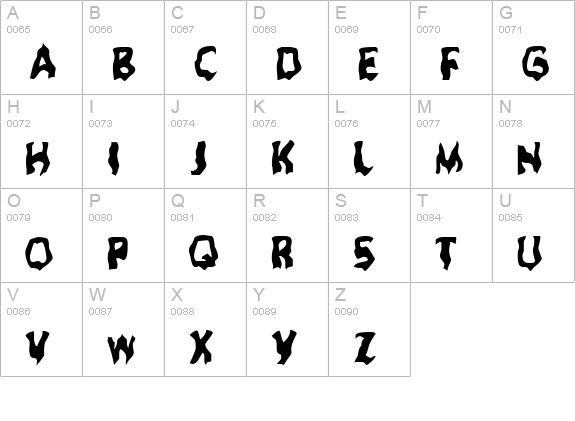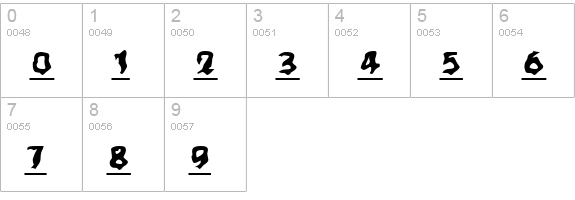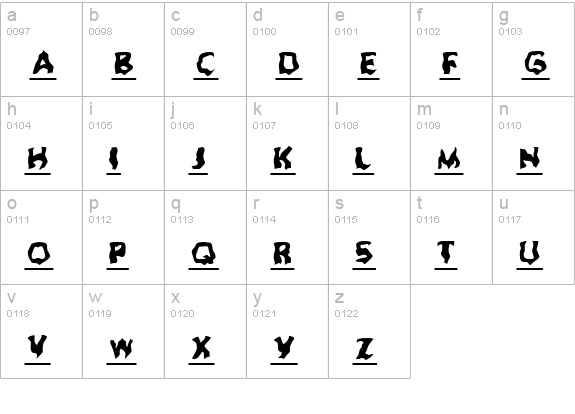
Ghoul Headline Font Details
Ghoul Headline font is a hauntingly beautiful typeface that exudes a sense of mystery and darkness. Its sharp edges and bold design make it perfect for creating eye-catching headlines and titles that demand attention. This unique font combines elements of horror and elegance, making it suitable for a wide range of projects, from Halloween party invitations to gothic-themed posters. The best part? Ghoul Headline font is available for free download at FontsMarket.com. Whether you're a designer looking to add a spooky touch to your work or simply a fan of all things macabre, this font is sure to make a statement. Don't miss out on the opportunity to elevate your designs with the captivating allure of Ghoul Headline font. Download it now and let your creativity run wild.